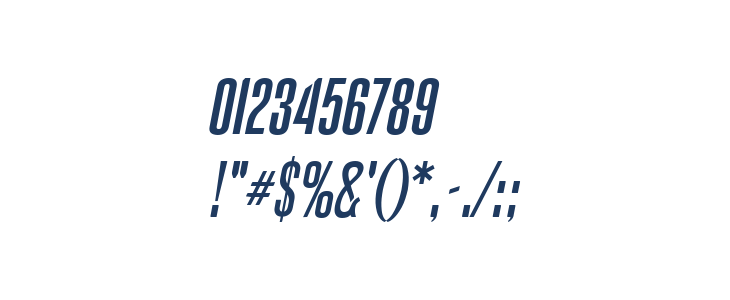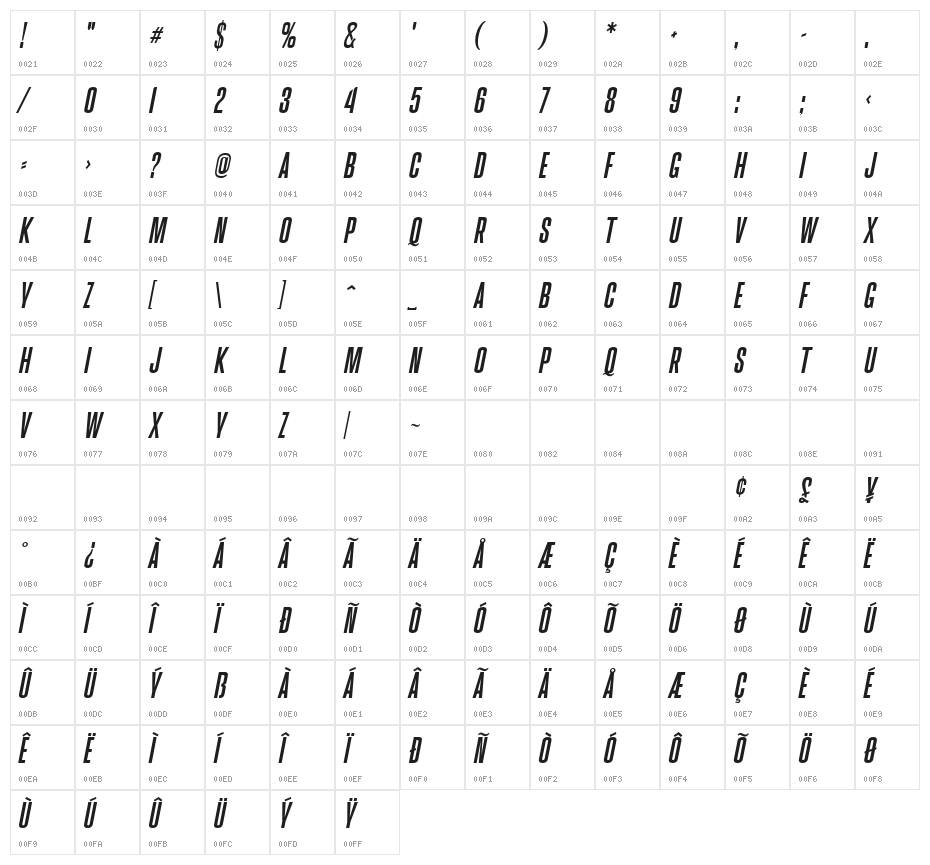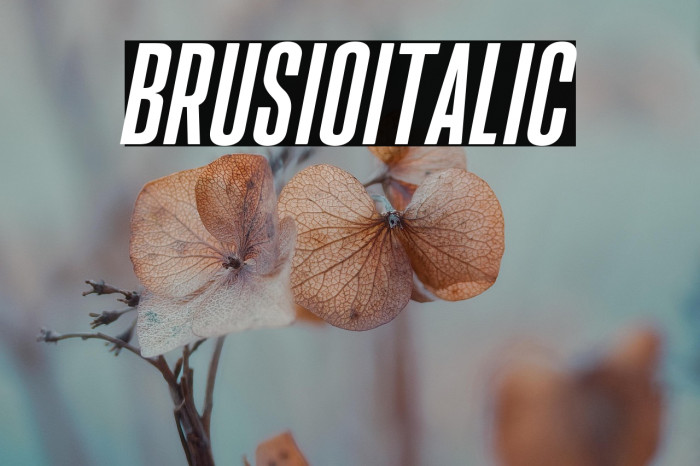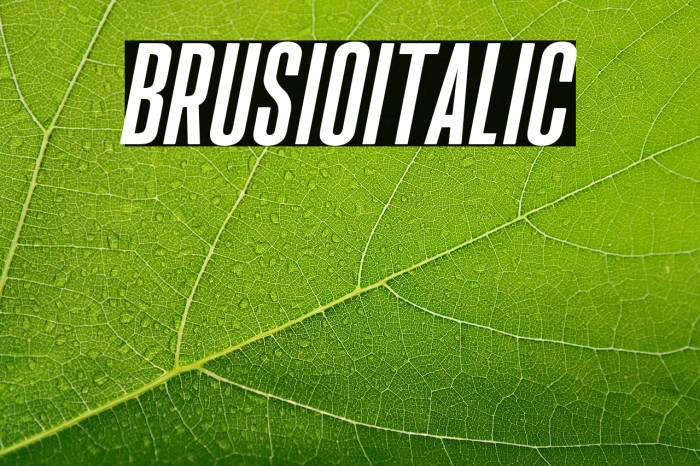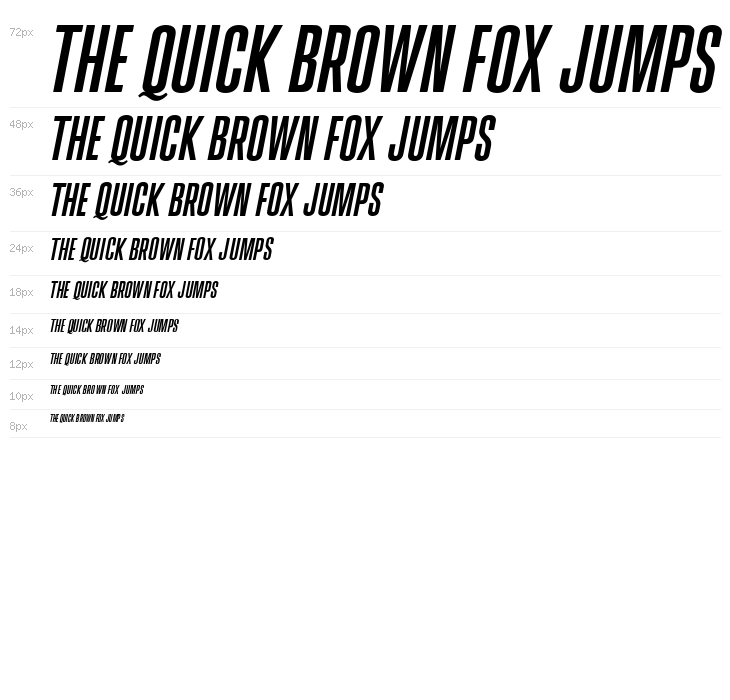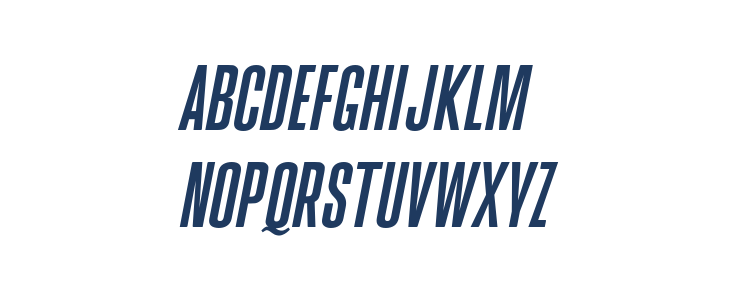
BrusioItalic Font
BrusioItalic Description
This font features a bold and dynamic italic style, characterized by its strong diagonal emphasis and condensed letterforms. The strokes are consistent in weight, offering a uniform appearance that enhances readability despite the slanted design. The uppercase and lowercase letters maintain a cohesive look, with sharp angles and clean lines that convey a sense of urgency and movement. The numerals and special characters are equally bold, ensuring they stand out in any context. This font's modern aesthetic is suitable for creating impactful headlines and attention-grabbing designs.